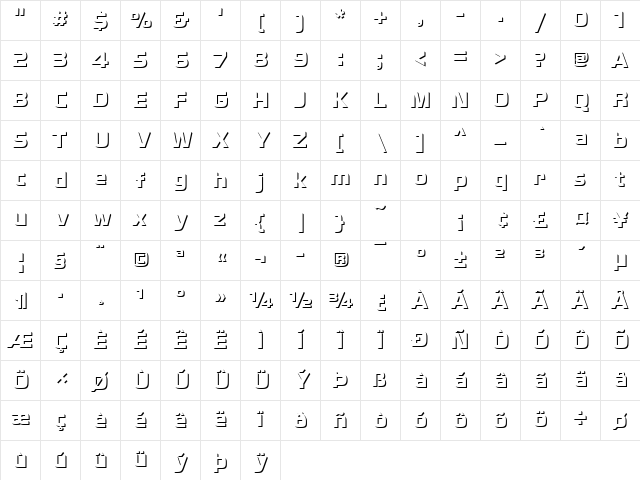
Becker Only Shadow Regular
Design Context for Becker Only Shadow
Becker Only Shadow is built around its visual character rather than neutral utility - its distinctive forms are designed to make an impression at display sizes.
Font Pairing: Pair with a clean neutral sans-serif for body copy to let Becker Only Shadow's character lead without overwhelming the composition.
Pro Tip: Use Becker Only Shadow exclusively at display sizes - it was designed to be seen, not read at length. Let a neutral companion handle body copy.